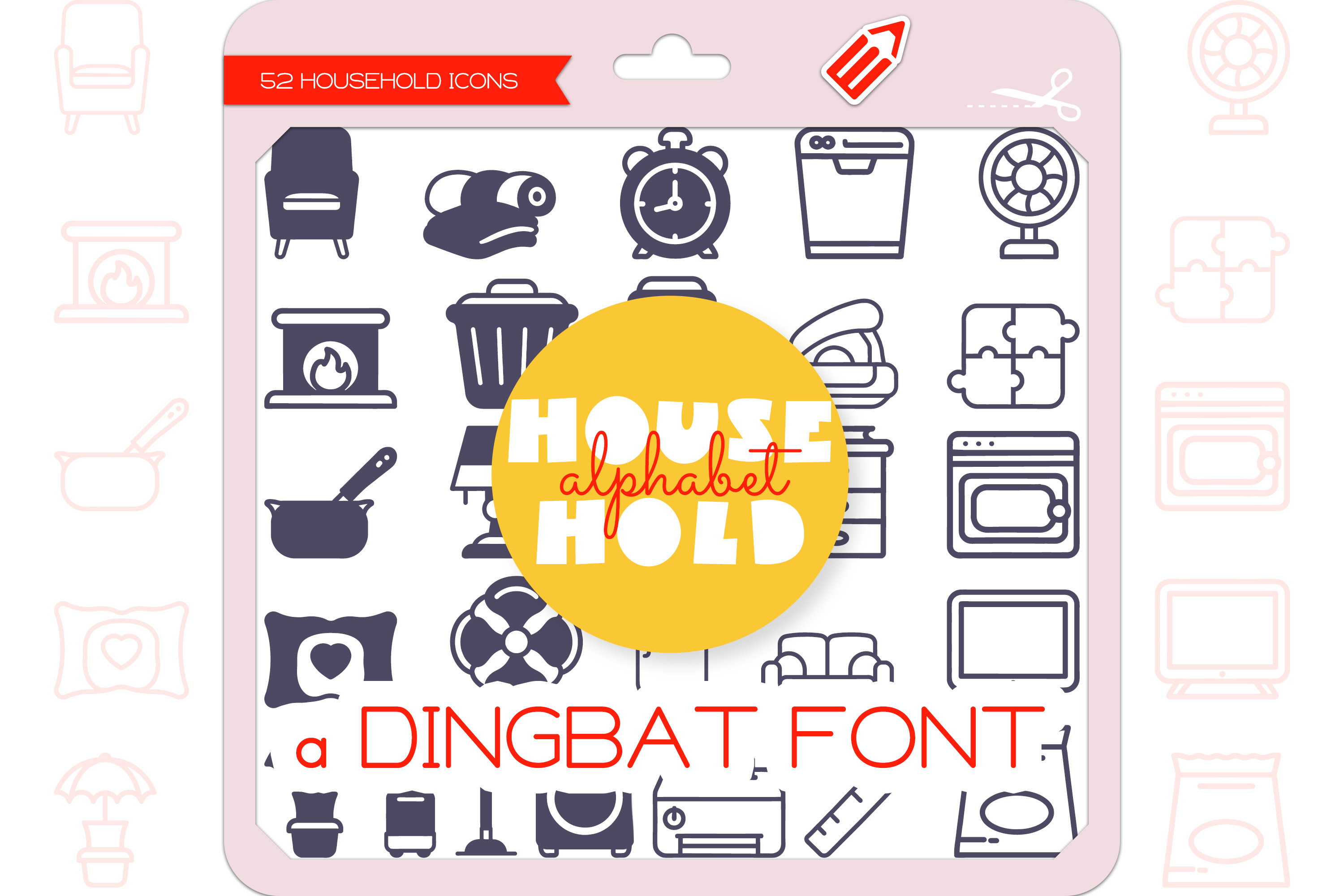
Household Alphabet - Dingbat Font
Household Alphabet is a unique and cute dingbat font, each Household icon representing each letter of the alphabet from A to Z. It contains 52 icons in 2 styles (Outline & Filled-Outline). Add this font to your creative ideas and make your arts outstanding!
The Household Alphabet Icons Dingbat Font featuring 26 A-Z things Armchair, Blanket, Clock, Dishwasher, Electric fan, Fireplace, Garbage can, Heater, Iron, Jigsaw puzzle, Kitchenware, Lamp, Microwave, Nightstand, Oven, Pillow, Quilt, Refrigerator, Sofa, Television, Umbrella stand, Vacuum cleaner, Washing machine, Xerox machine, Yardstick, Ziplock bags